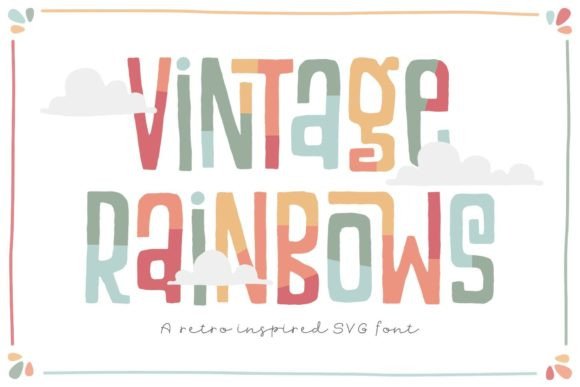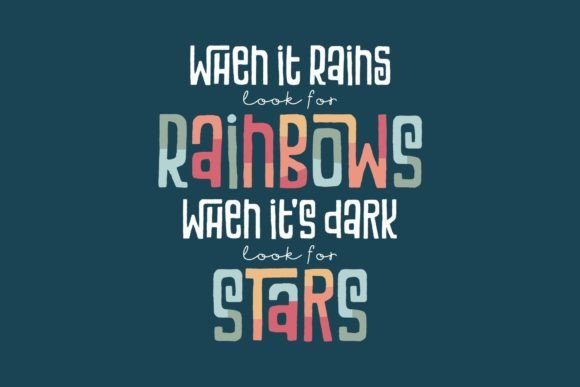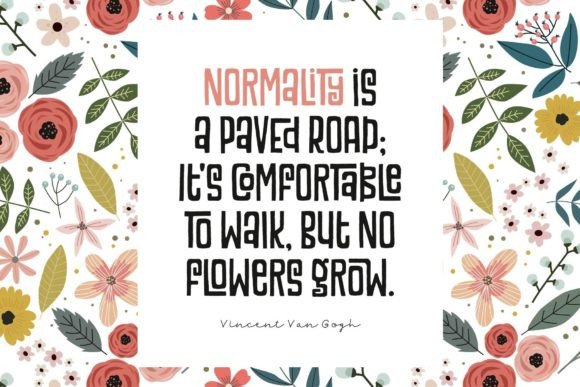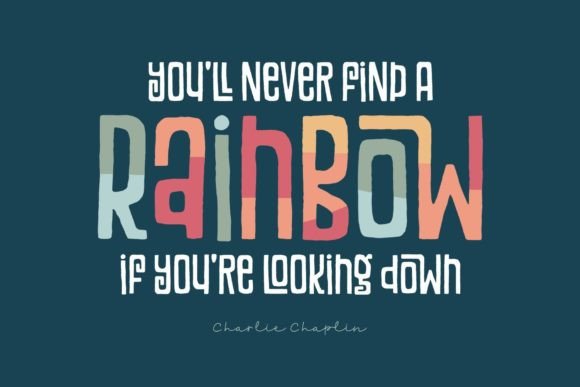
About Vintage Rainbows Font
Vintage Rainbows is a charming and hand-drawn font with a delightful vintage aesthetic. With its rough-edged style and colorful, color-blocked SVG version, this font brings a playful and retro vibe to your designs.
One of the unique features of Vintage Rainbows is its collection of fun ligatures. Ligatures are special combinations of letters or characters that are designed to enhance the visual appeal of the text. When using Vintage Rainbows in programs that support OpenType and have ligature features enabled, these ligatures will automatically appear as you type, adding even more character and charm to your typography.
Additionally, Vintage Rainbows is PUA encoded, which means you can easily access all the glyphs and swashes. PUA encoding provides a standardized way to access special characters and symbols that may not be readily available on a standard keyboard. This gives you the flexibility to customize your designs and add unique elements with ease.
When using Vintage Rainbows, consider the context and theme of your design. It’s particularly well-suited for projects that aim to evoke a nostalgic or retro feel, such as vintage-inspired posters, album covers, greeting cards, or social media graphics. The rough-edged style adds a handmade and authentic touch to your typography, while the colorful SVG version brings vibrancy and visual interest.
Experiment with different ligatures and combinations to create custom effects with Vintage Rainbows. Explore its collection of glyphs and swashes to add flourishes and decorative elements to your text. The versatility of this font allows you to create unique and eye-catching designs that stand out.